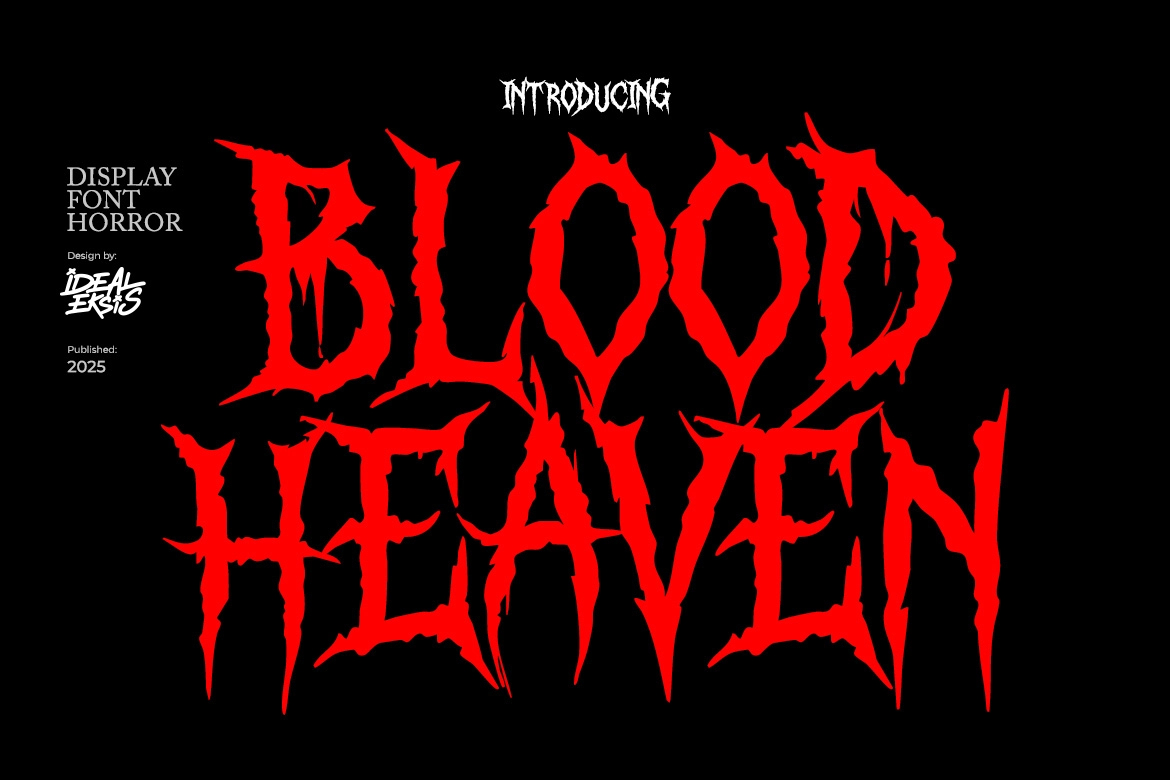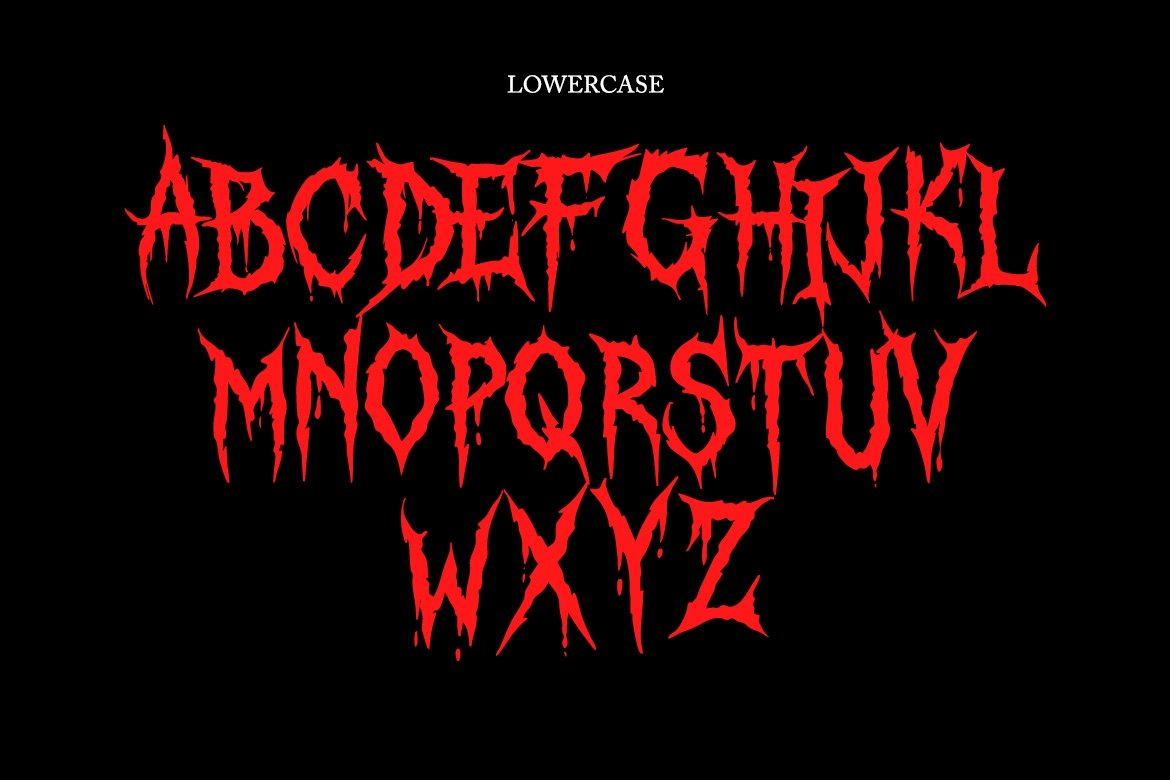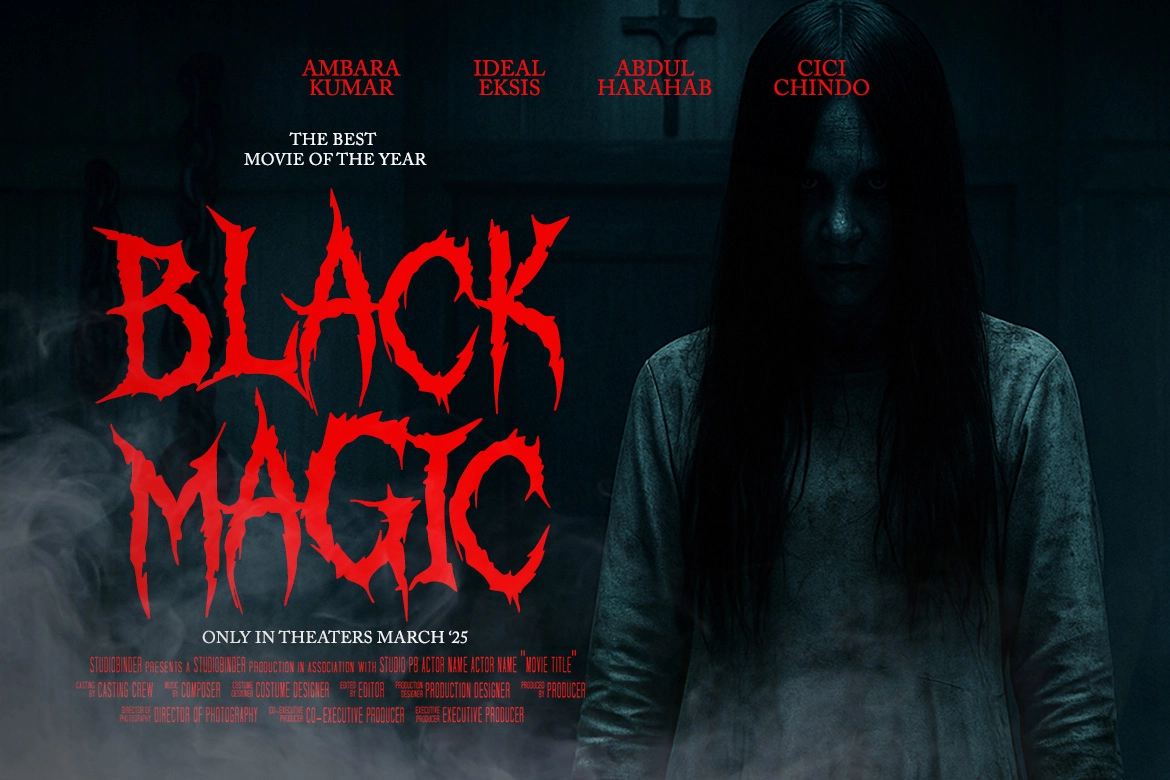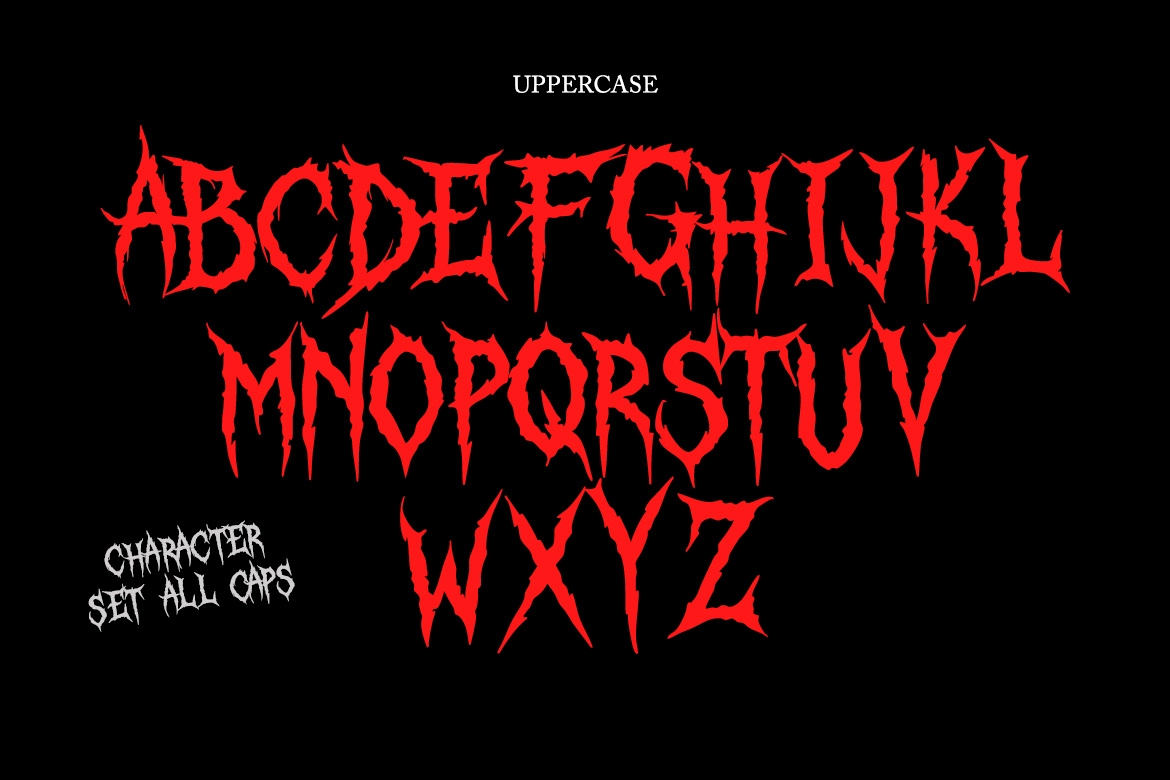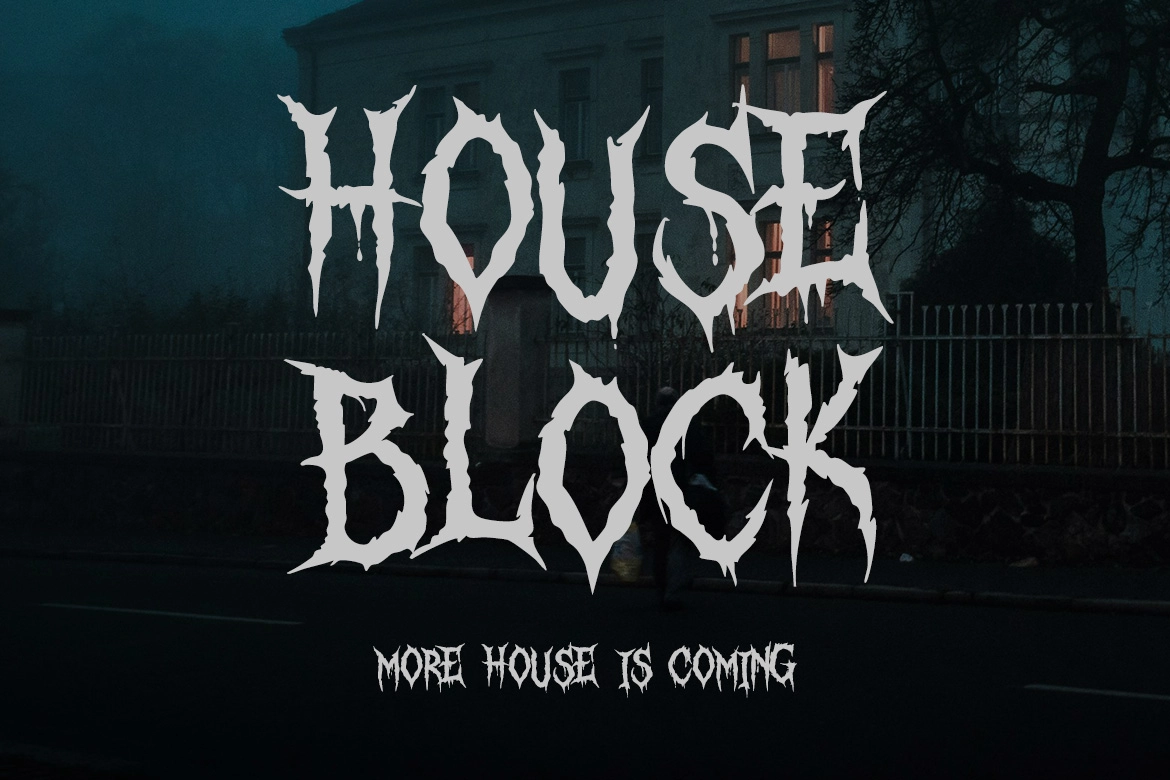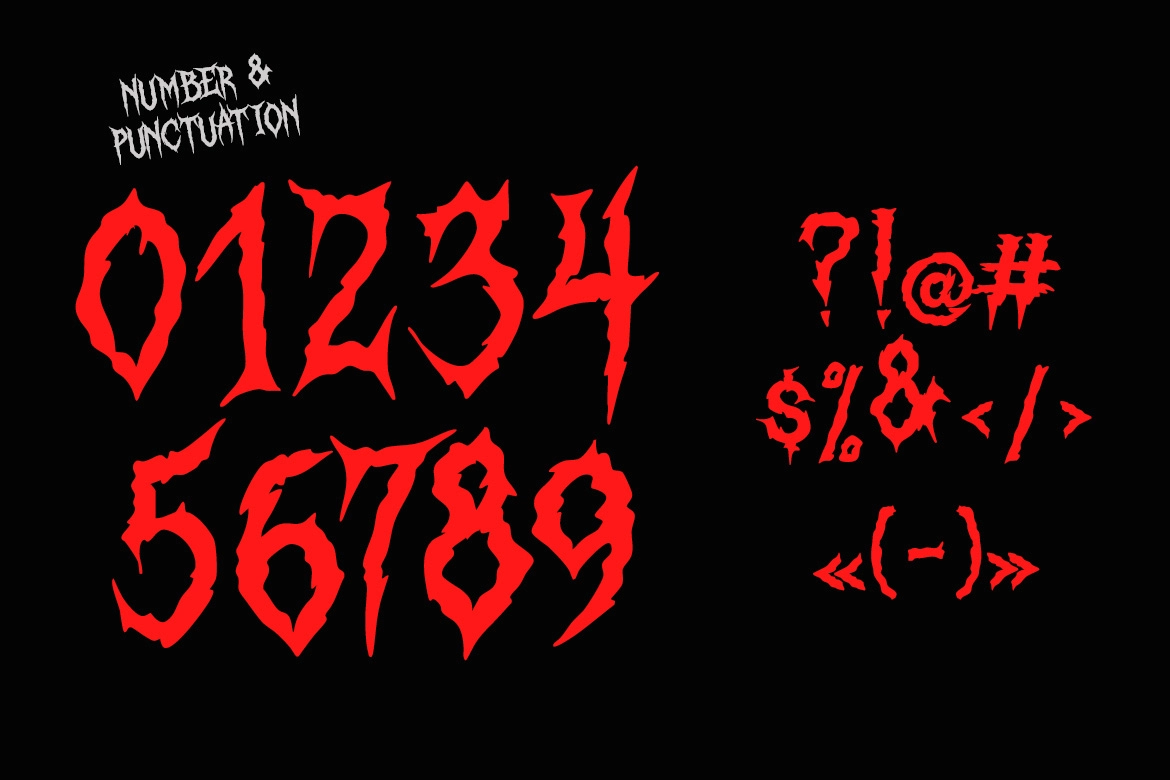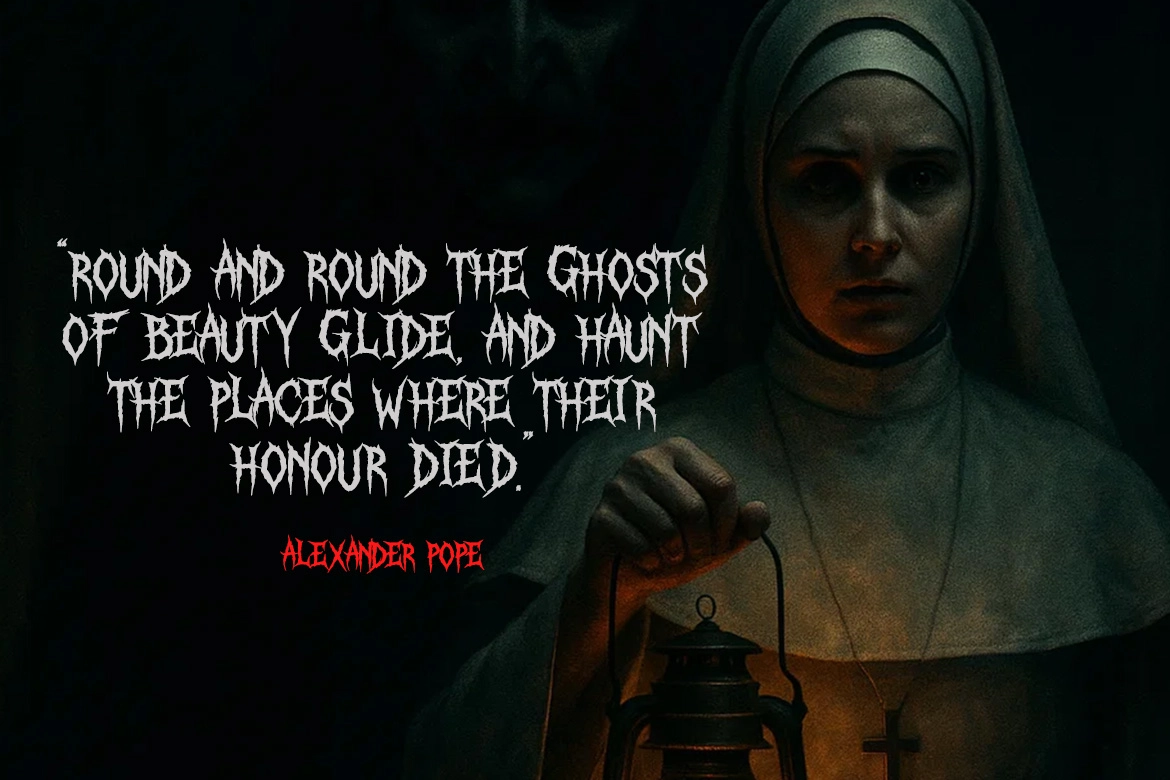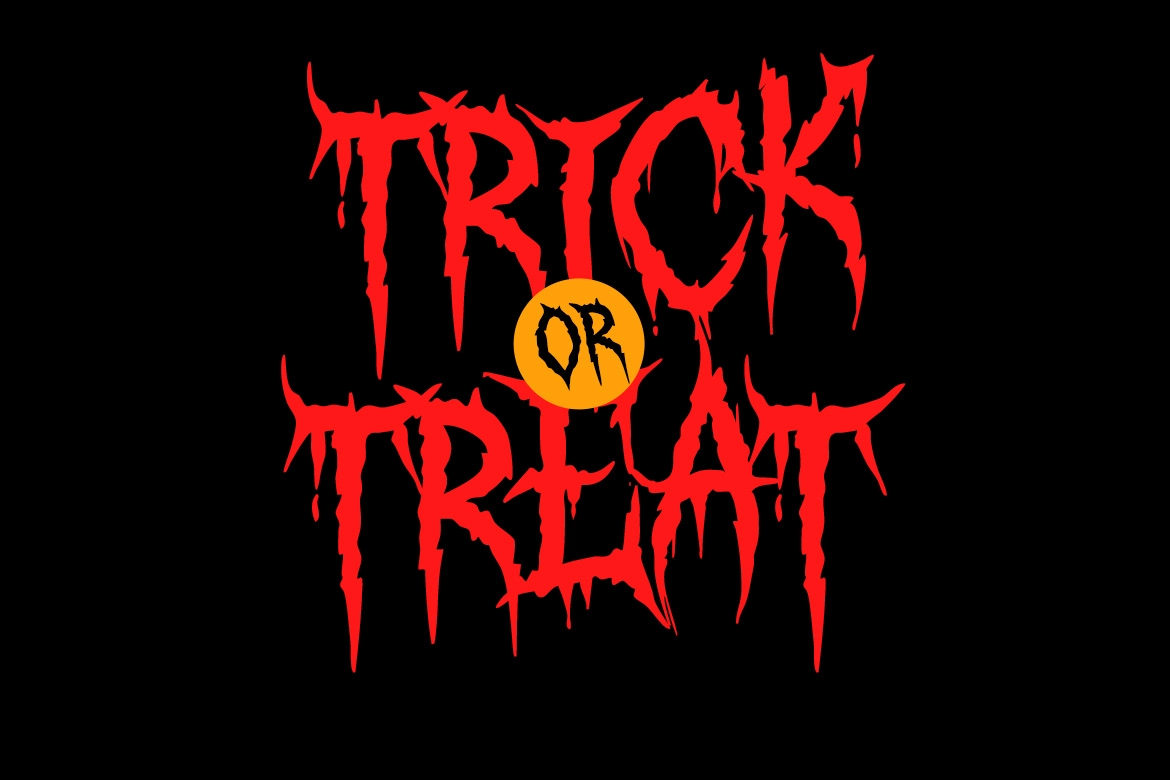
Blood Heaven – Horror Dripping Display Font
Blood Heaven
Blood Heaven – Horror Dripping Display Font is a sharp horror-inspired display typeface featuring jagged edges and dripping forms that create a dark, sinister visual impact. Its aggressive shapes and chaotic texture evoke classic horror movie aesthetics, making it perfect for designs that aim to feel intense, eerie, and unforgettable.
Designed to capture attention instantly, this font works exceptionally well for horror posters, Halloween visuals, metal band logos, game titles, and dark-themed branding. The distinctive dripping style adds a sense of movement and tension, helping your typography stand out with a raw and terrifying personality.
- Uppercase letters (All Caps)
- Numerals and punctuation
- Horror dripping and jagged style